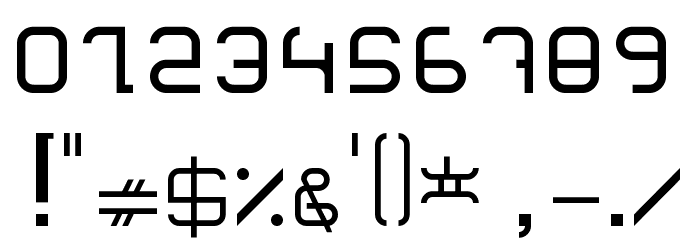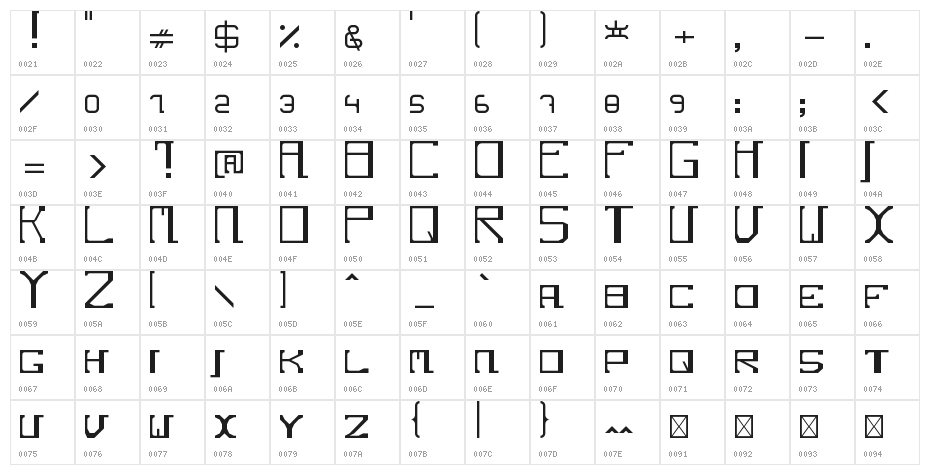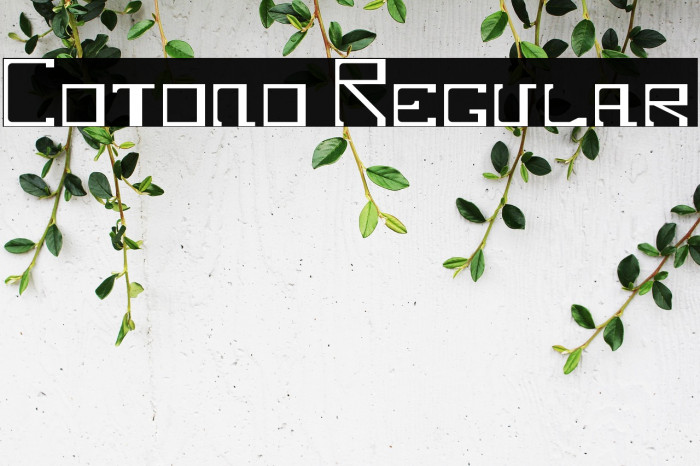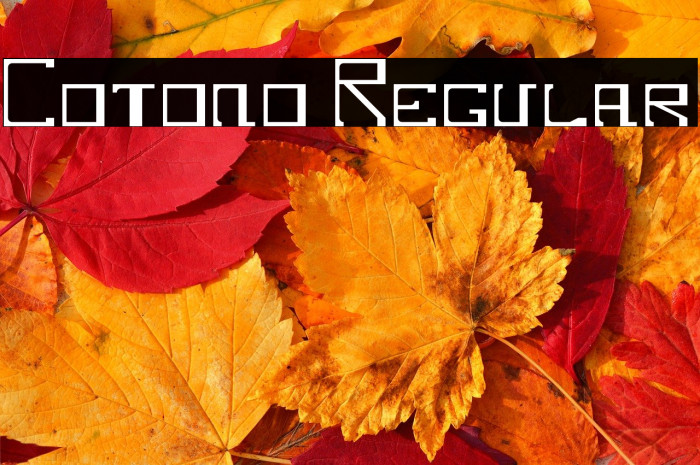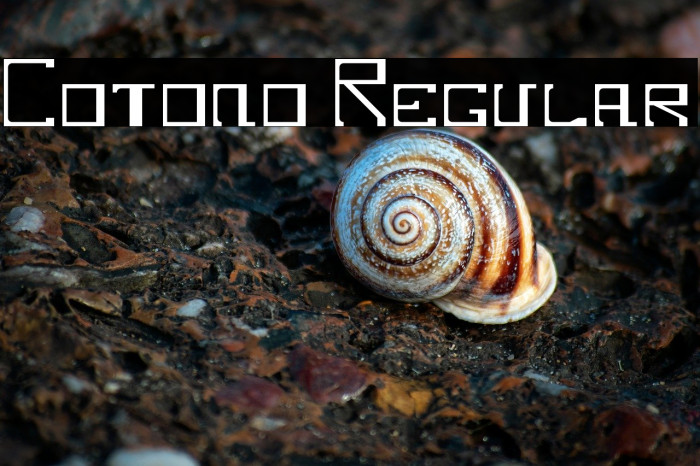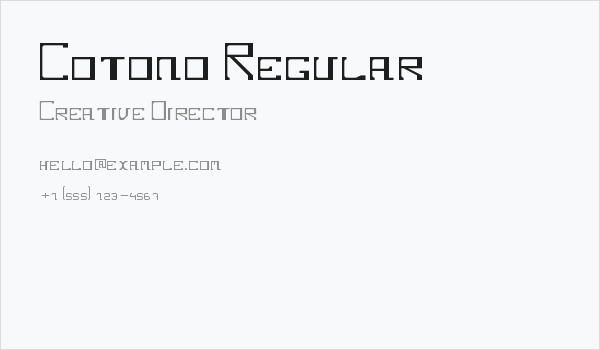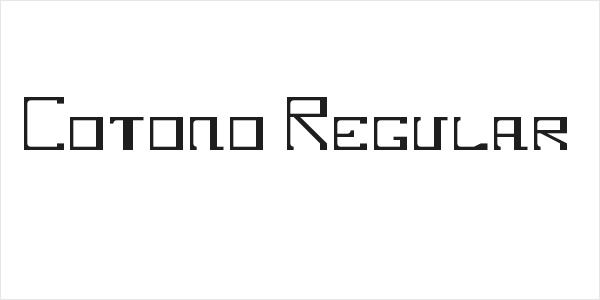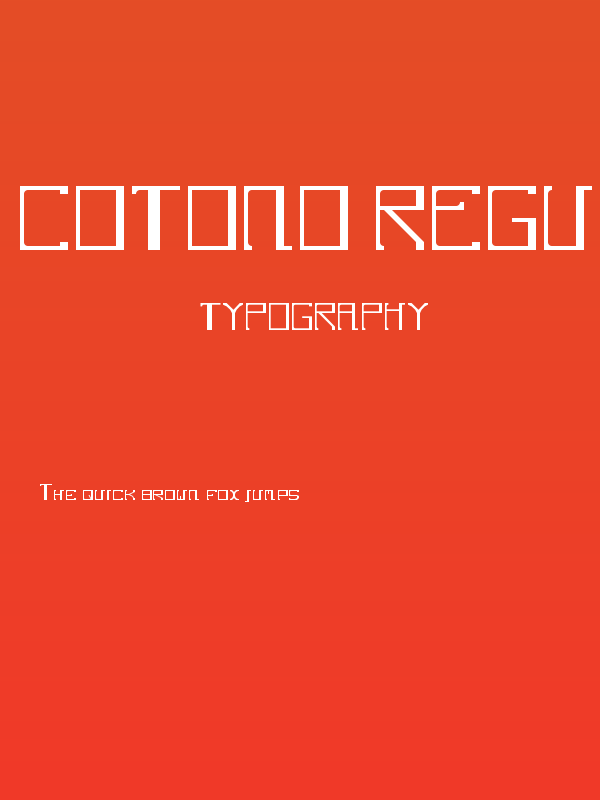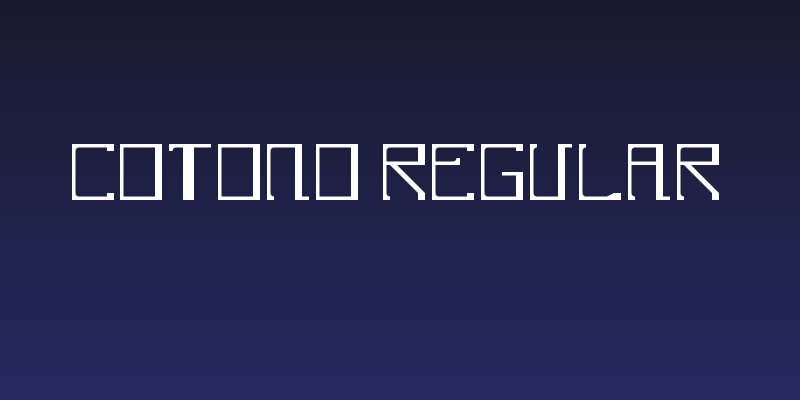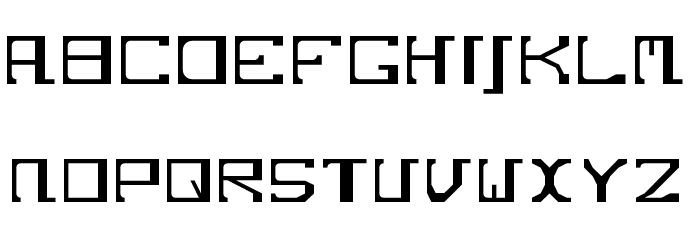
Cotono Regular Font
Cotono Regular Description
This font features a geometric and modern design with a distinct, angular appearance. The characters are constructed with straight lines and sharp angles, giving it a futuristic and technical feel. The uppercase and lowercase letters maintain a consistent height, contributing to a uniform look. The numerals and special characters follow the same design principles, ensuring cohesion across all elements. The font's unique style makes it stand out, suitable for projects that require a bold and innovative aesthetic.
| Proposed Projects | Ideal for technology branding, sci-fi themed designs, video game interfaces, and modern posters. |